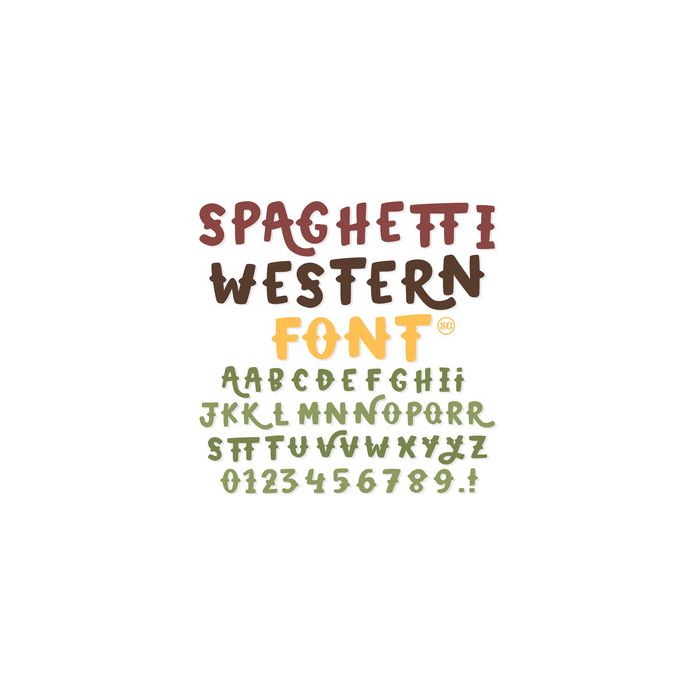
sg spaghetti western font
This hand drawn alphabet can be used for any project! This font includes Uppercase, lowercase variations, 0-9, and basic punctuation *Kerning, letting, and baseline may need to be adjusted for desired effect. For ideas and inspiration visit my website or or my blog!